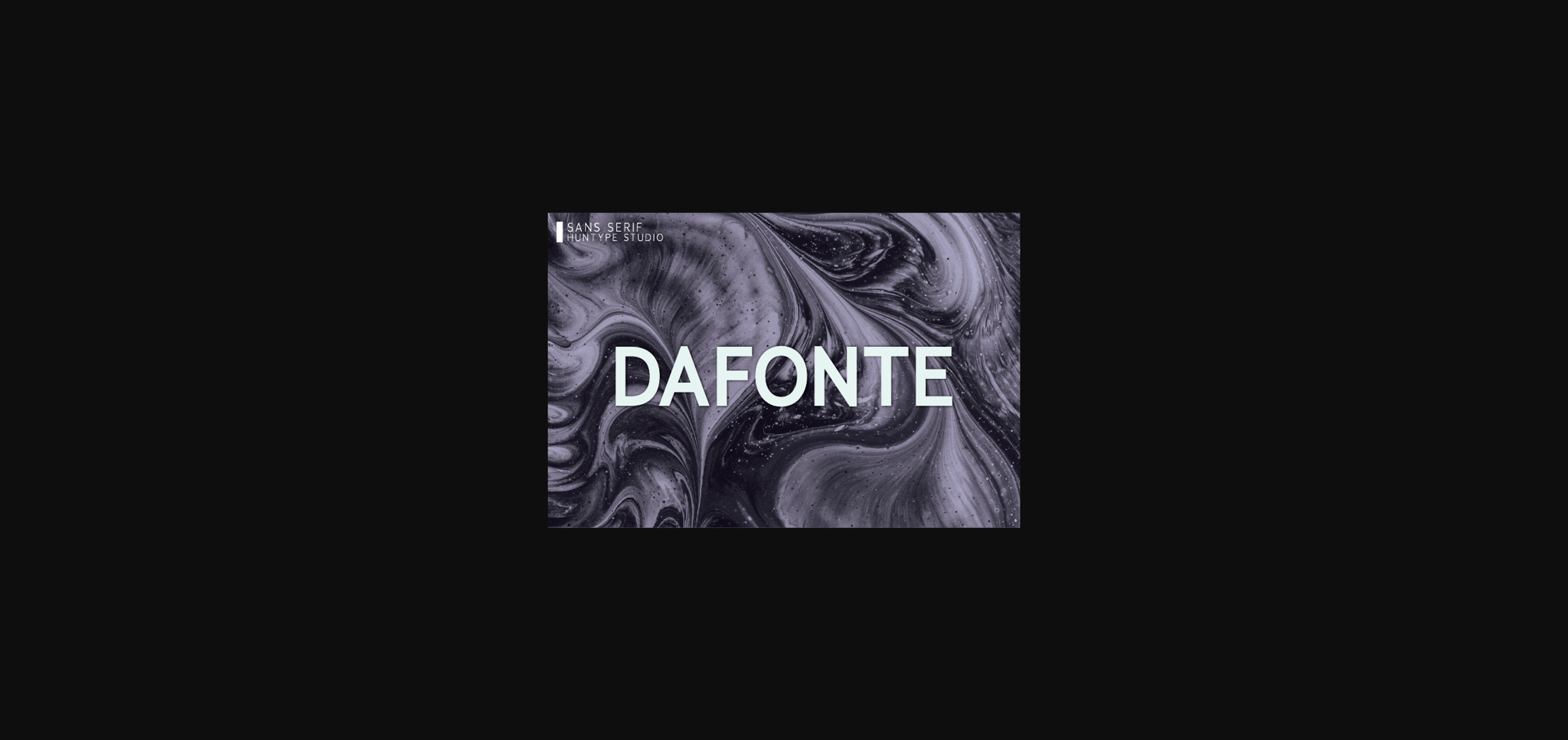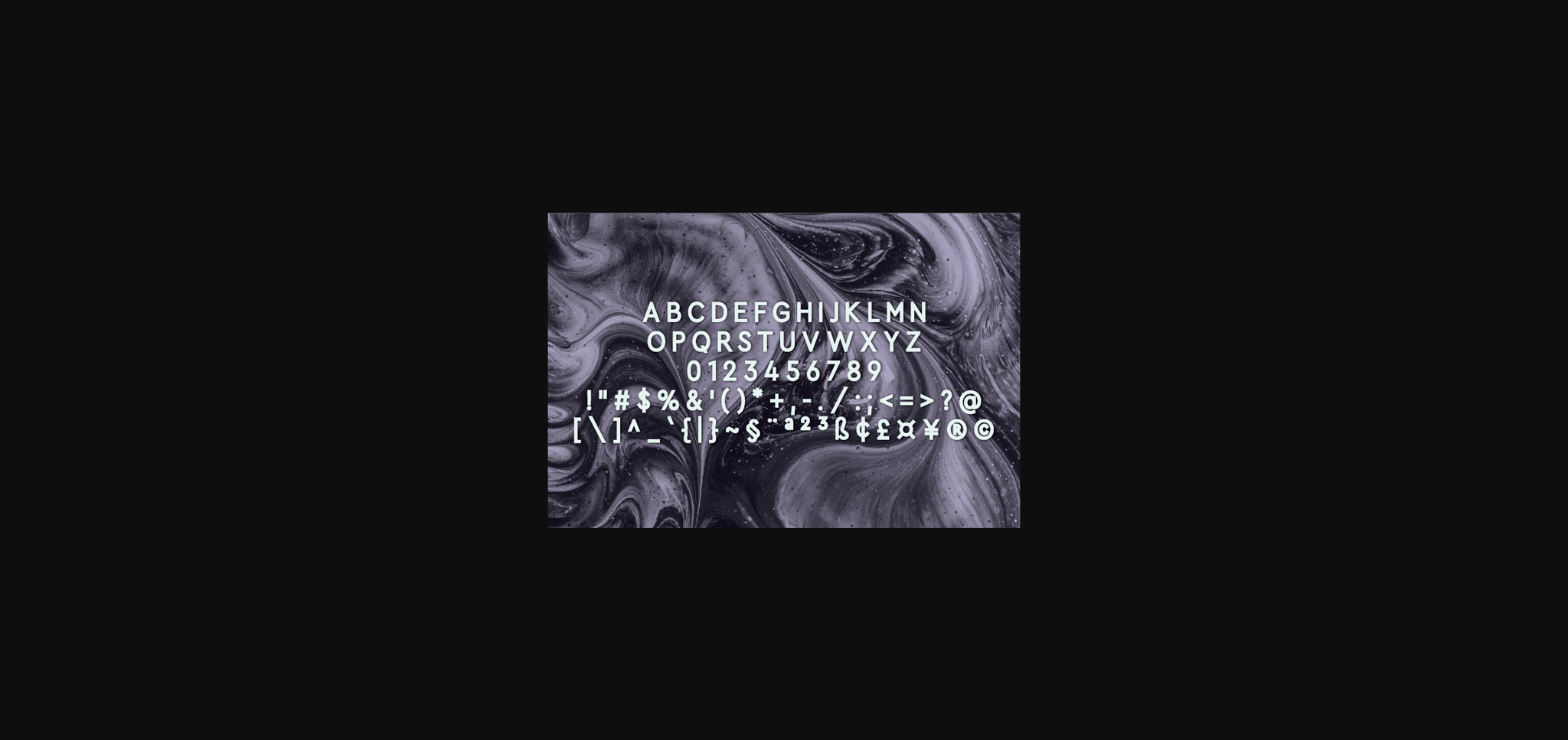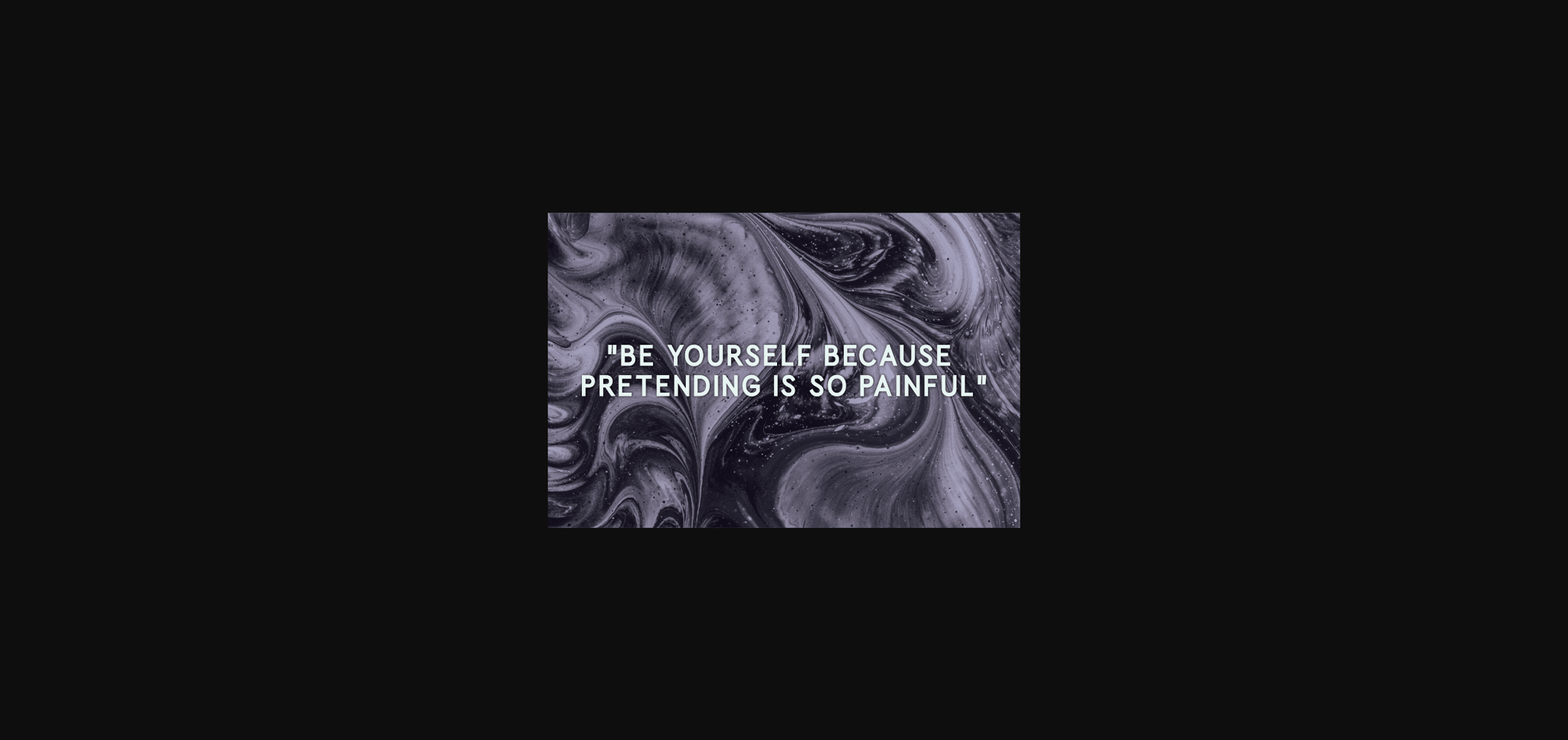
Dafonte Font
About Dafonte Font
Dafonte is an bold sans serif font designed to complement every project you wish to create.
It is perfect for displays, headers, invitations, save the dates, weddings, and so much more!